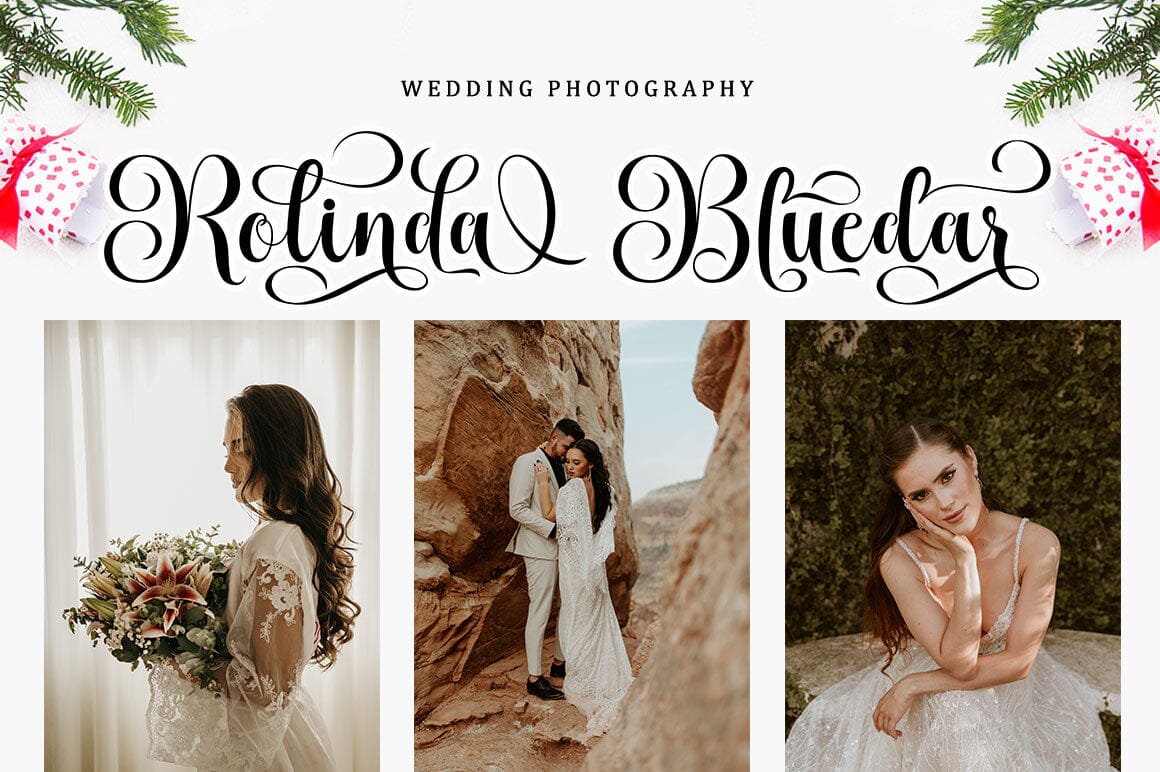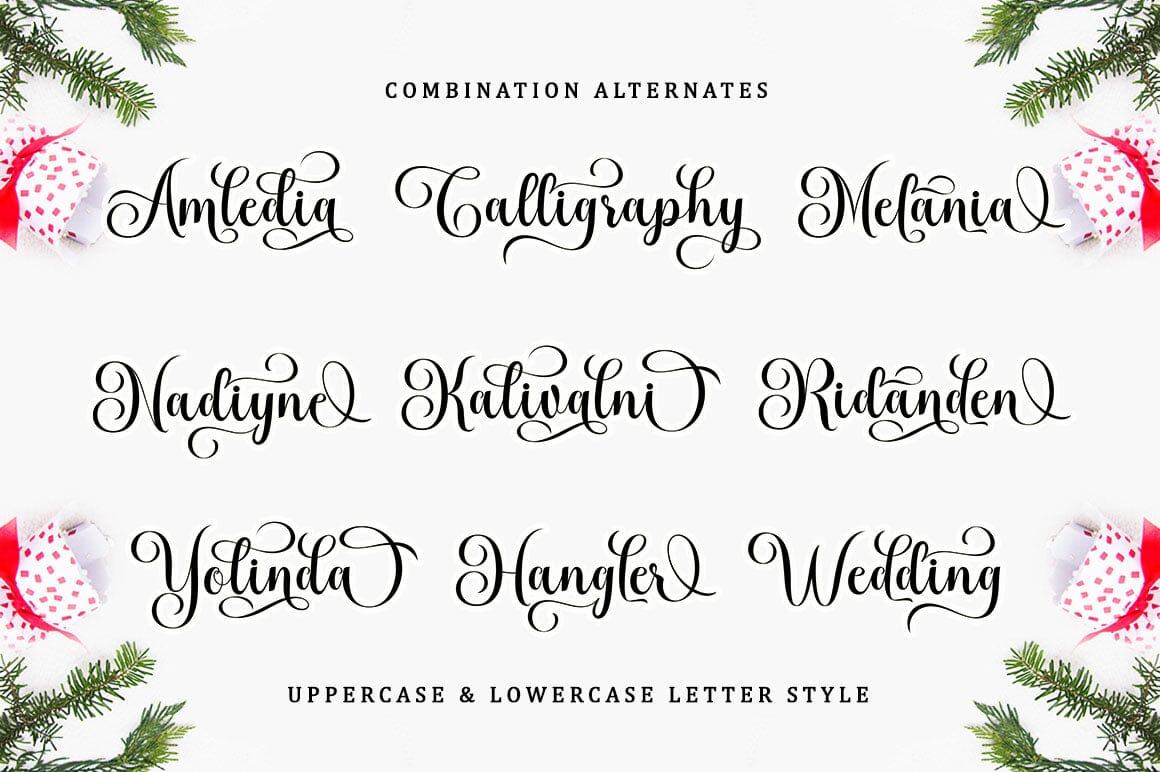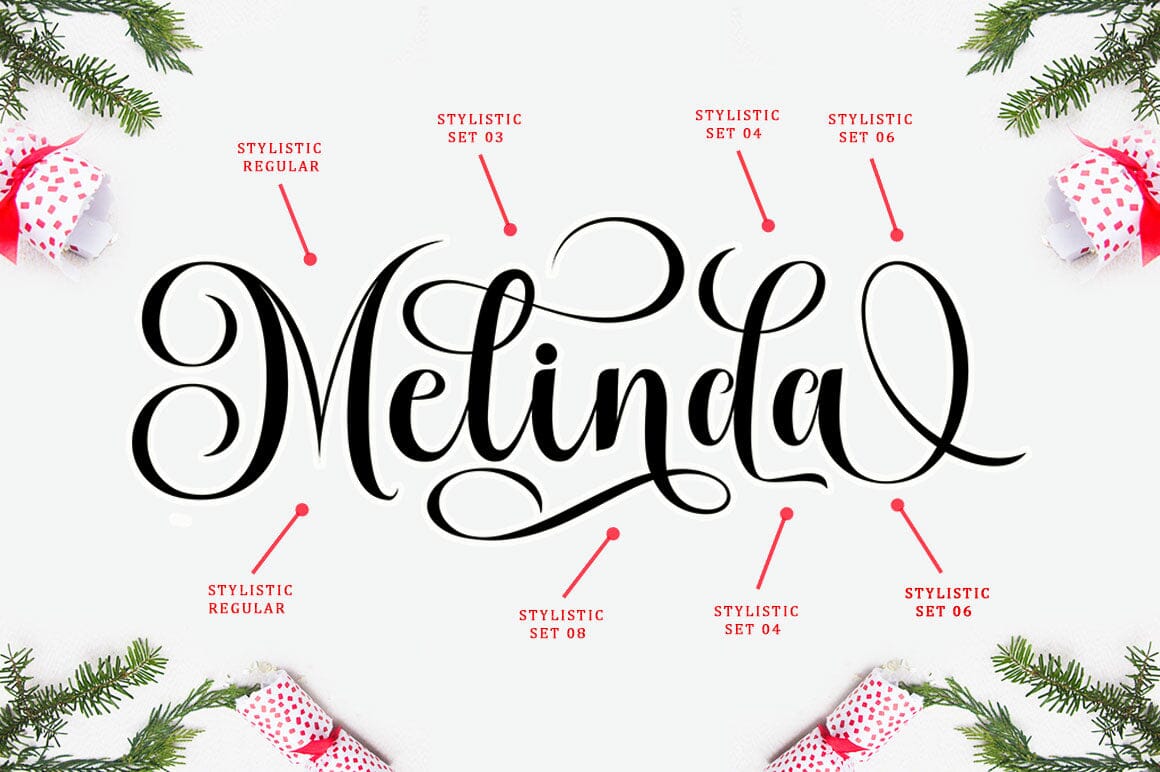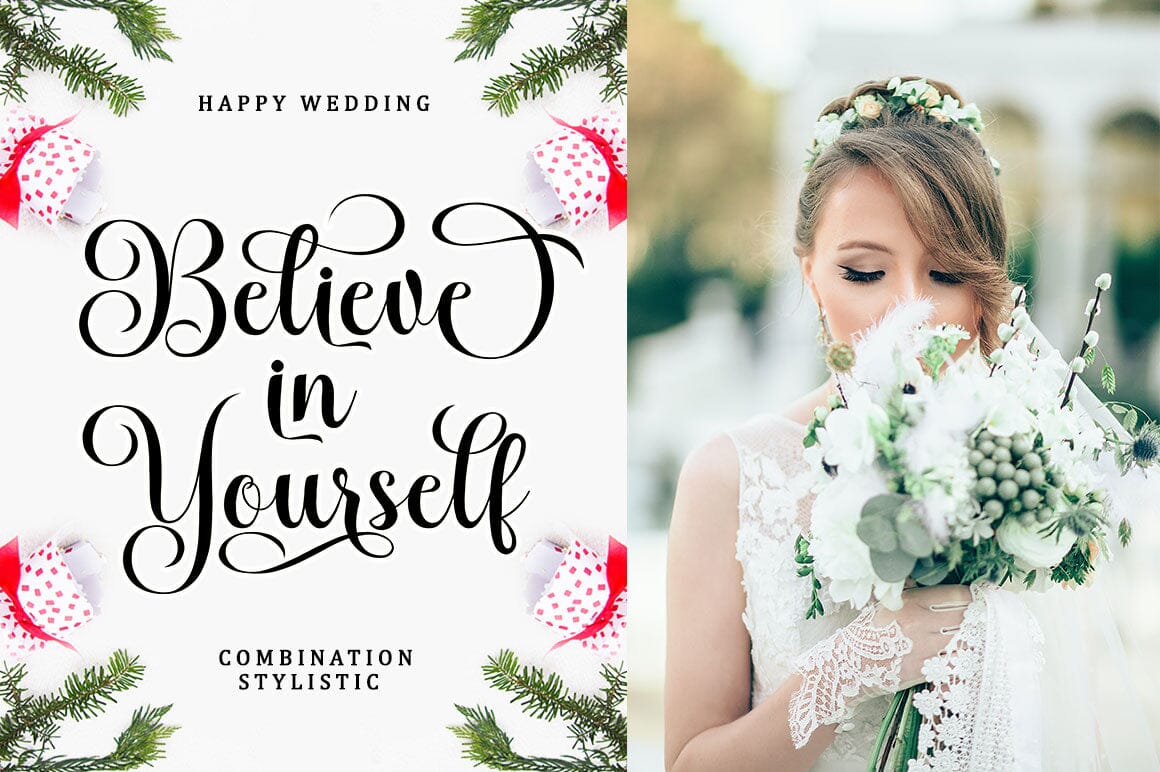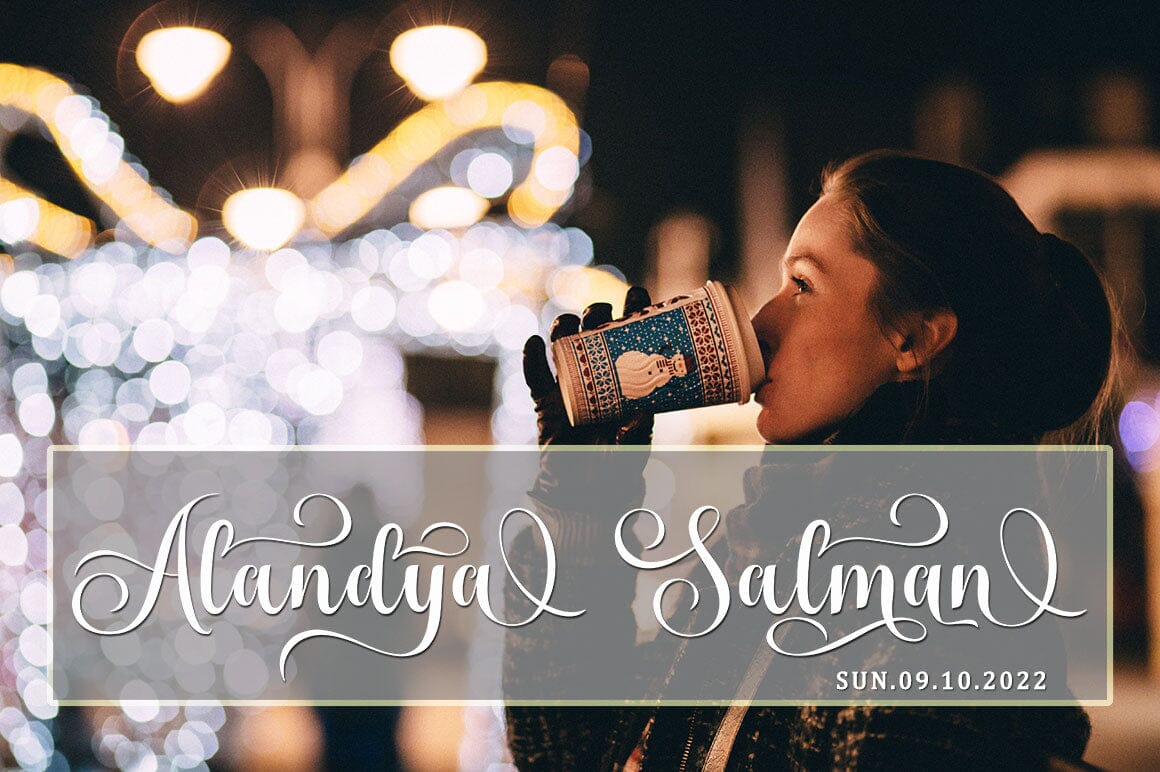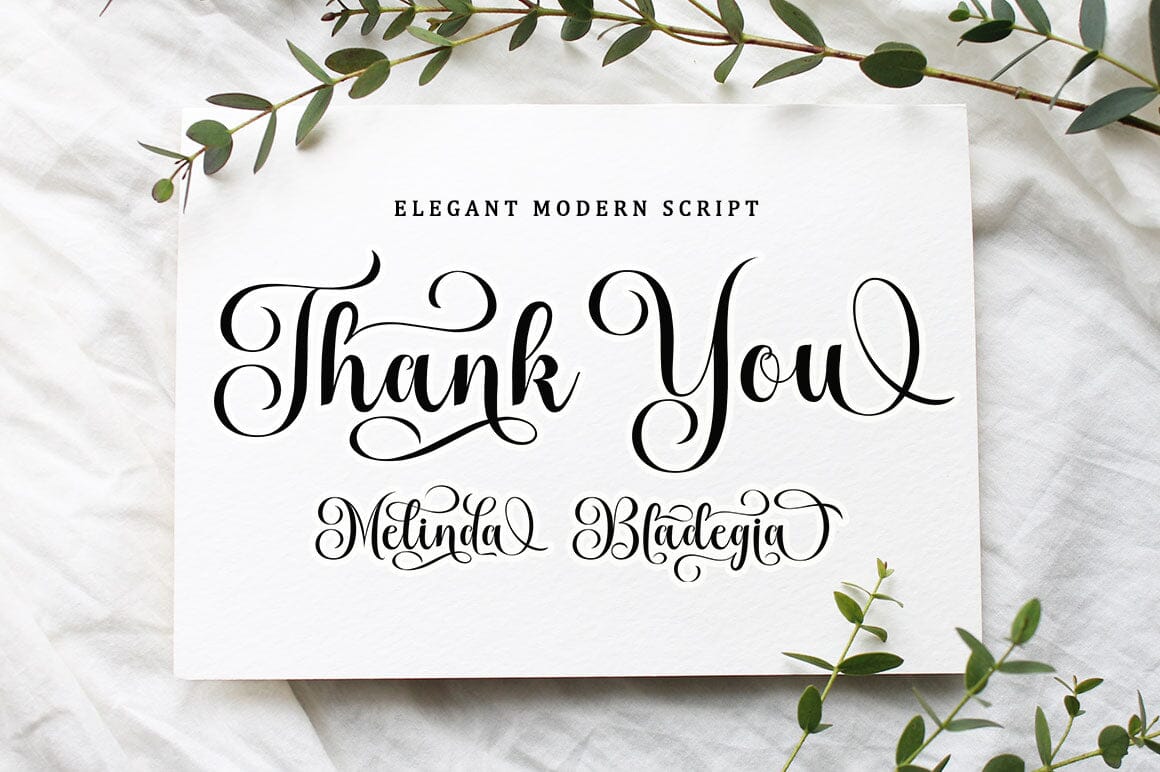
About Melinda Bladegia Script Font
Melinda Bladegia is a very cute, elegant and unique handwritten font. Expertly designed to be a true favourite, this font has the potential to take your creative ideas to the highest level! В This font is PUA encoded which means you can access all the glyphs and sweeps easily! В Melinda Bladegia is attractive because it is sleek, clean, feminine, sensual, glamorous, simple and very easy to read, thanks to its many luxurious lettering connections. I also offer a decent number of style alternatives for all letters. Classic style is very suitable to be applied in various formal forms such as invitations, labels, restaurant menus, logos, fashion, make up, stationery, novels, magazines, books, greeting/wedding cards, packaging, labels or all kinds of advertisements. for your purposes. . . . . . . В Contains full set: -4 Type Font -Uppercase -Lowercase -Alternative -Ligatures -Punctuation -Number -Multilingual support. В need help or have questions let me know. I’m happy to help. Thanks & Congratulations on the Design.